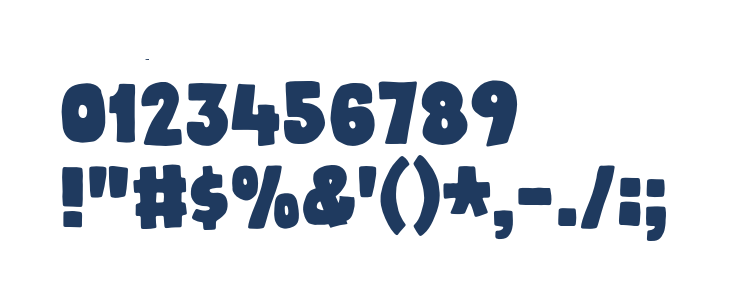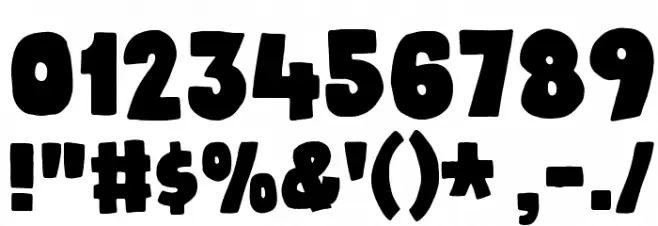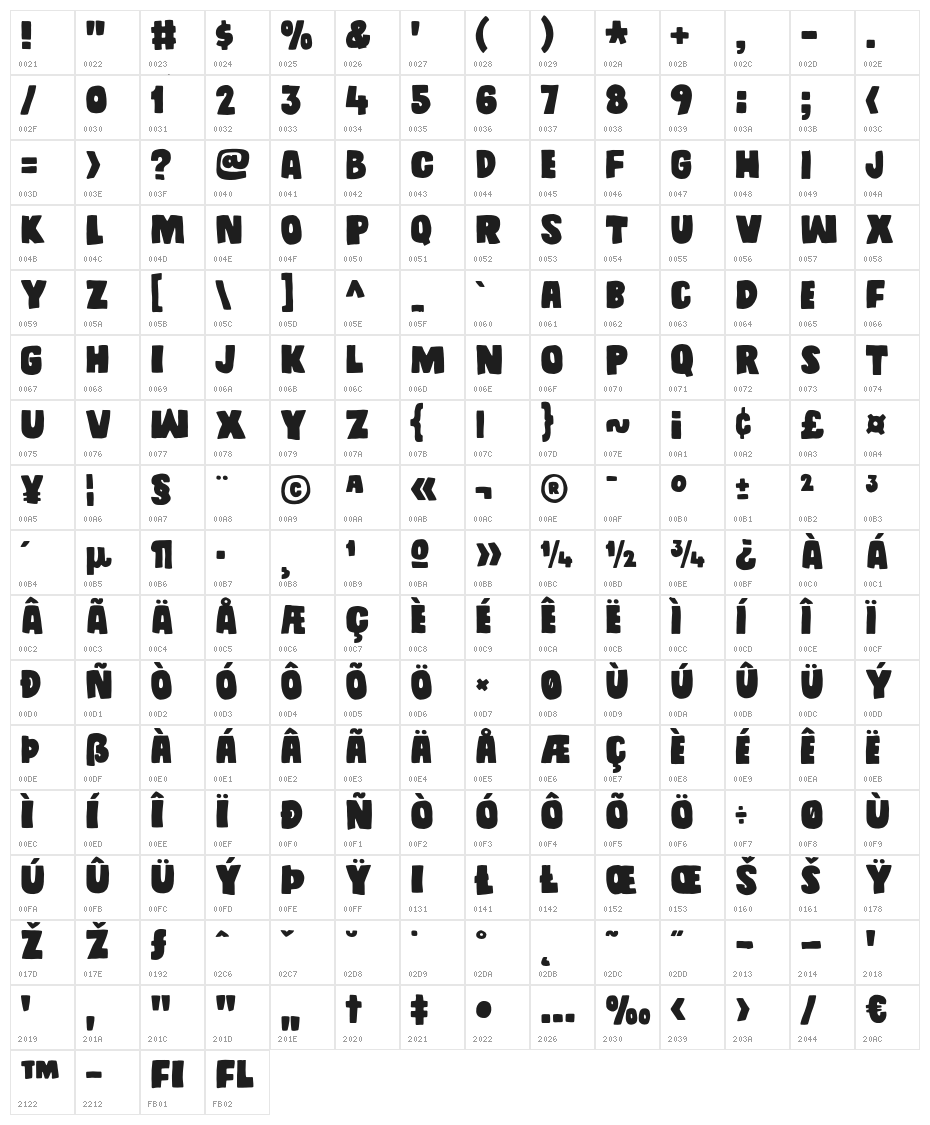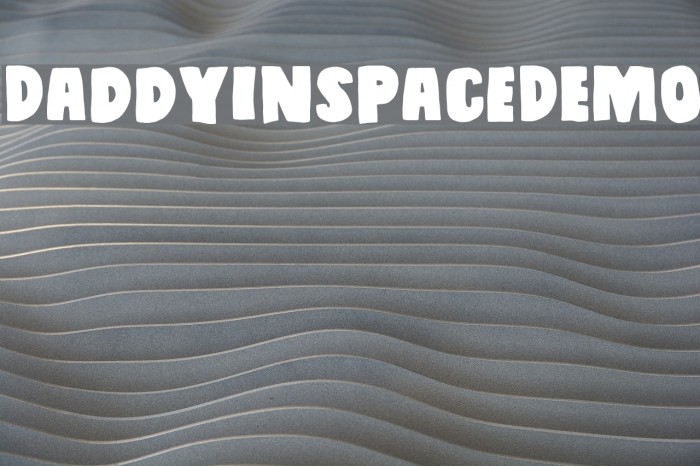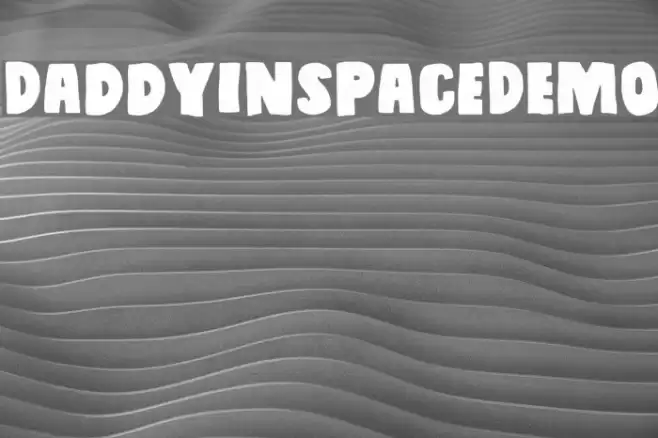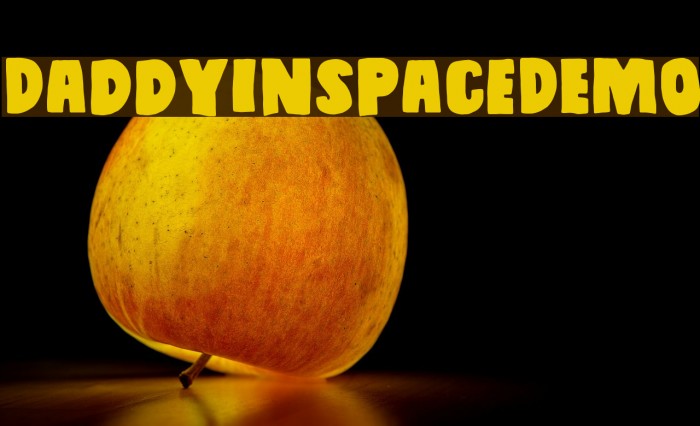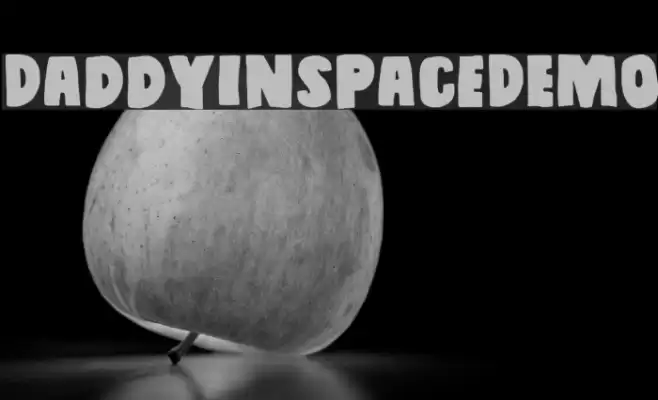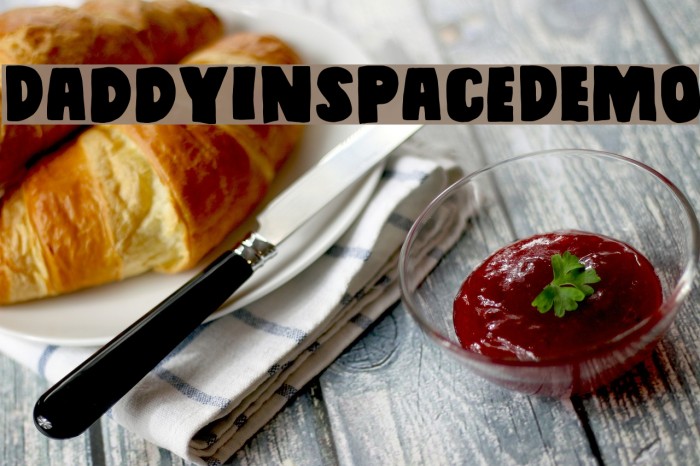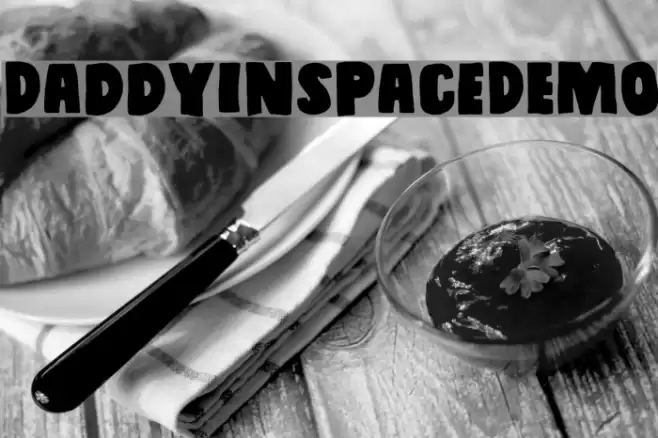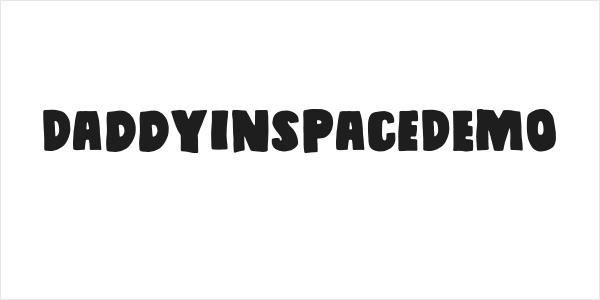
DaddyinspaceDEMO Font
DaddyinspaceDEMO Description
This font features bold, chunky letters with a playful and whimsical style. The characters are rounded and have a hand-drawn appearance, giving them a friendly and approachable feel. The uppercase and lowercase letters are consistent in their boldness, and the numbers and special characters maintain the same playful aesthetic. The font's design is reminiscent of comic book lettering, making it ideal for projects that require a fun and informal touch. Its thick strokes and irregular shapes add to its charm, making it stand out in any design.
| Proposed Projects | Ideal for children's books, comic strips, playful branding, and eye-catching posters. |